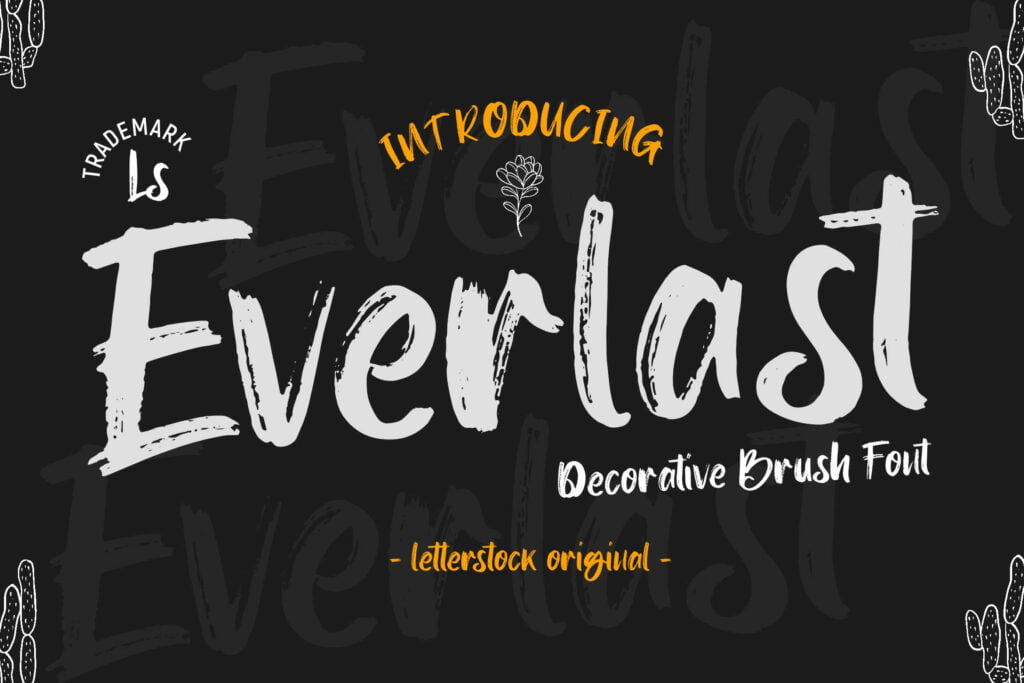
Everlast Font
Everlast Font This pair was inspired by the retrobike poster design that i saw on some coffee shop, It was crafted by hand specially to add natural handmade feeling in its brand identity than i make it clean with pentool.
**Opentype features** Everlast font has 173 character set included Everlast Font is very good looking in logo, labels, t-shirt prints, product packaging, invitations, advertising and others.